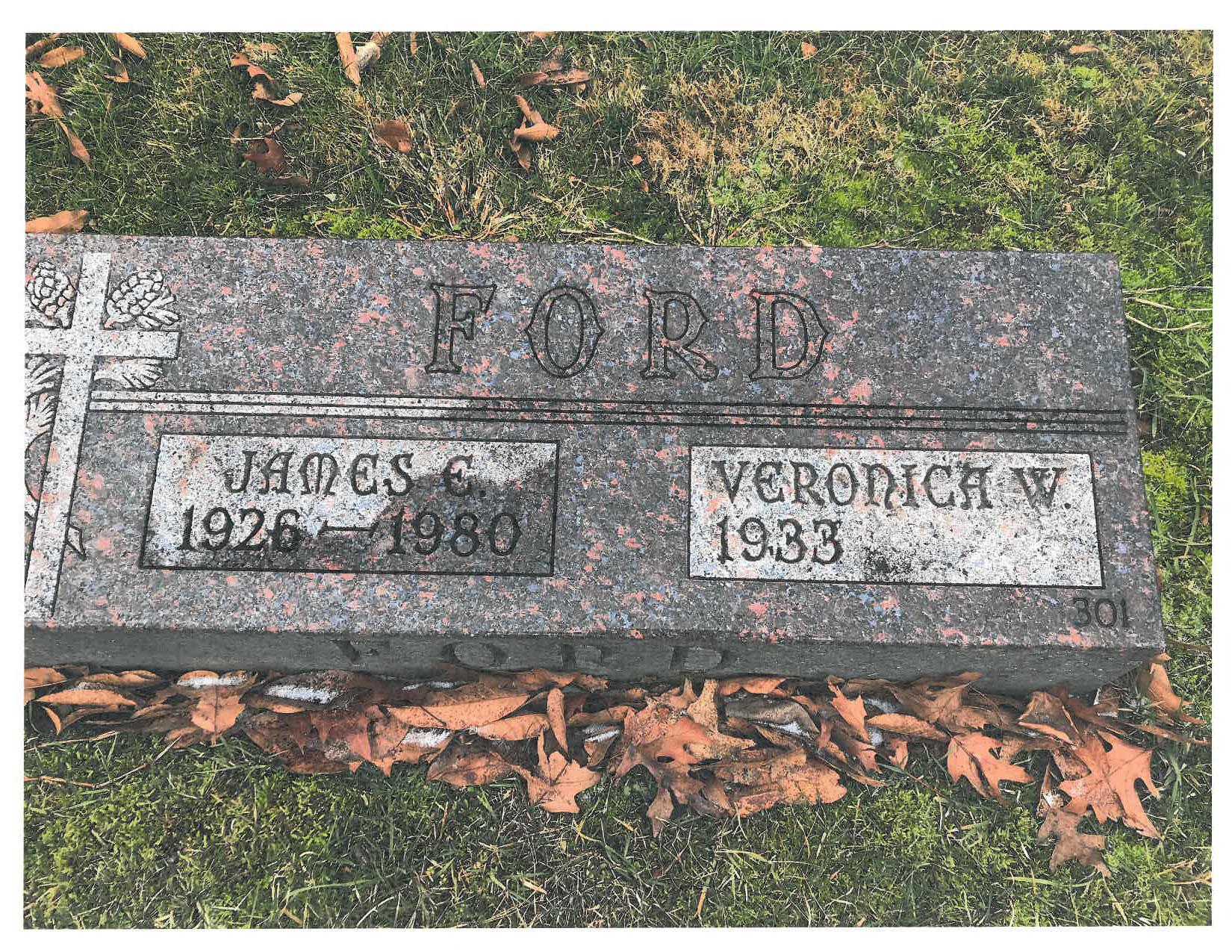
Kind of UNCIAL GOTHIC, but not?
This is some variant of Uncial Gothic, I’m guessing, but I can’t find a version online that has the differences. I would redraw but the rubbings from the marker are terrible.
My concern is only with the “2” and the “0” since we are only inscribing “2020.”
Hello, this is in all likelihood hand-drawn or perhaps a custom letter set. During the early 1980s there were no digital fonts available to the industry, and only two Lombardic Uncial style alphabets available to the monument industry as physical lettering sets or metal sheets.